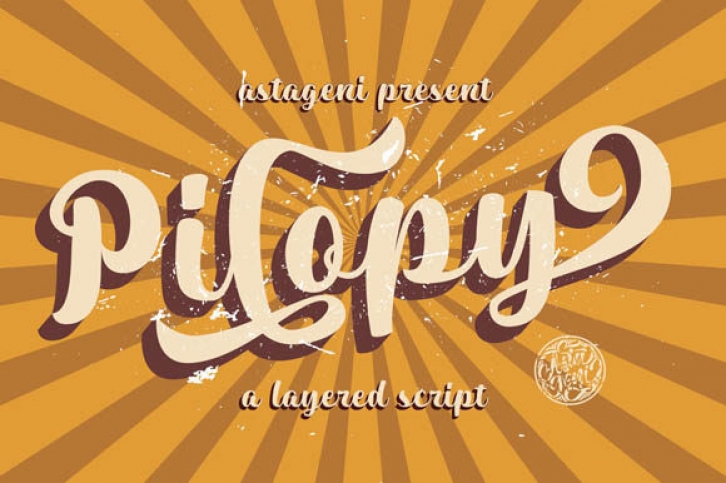
Pilopy is a bold script font with a unique vintage look. Pilopy also comes with an extra extruded version. It will elevate a wide range of design projects to the highest level, be it branding, headings, logos, labels, and much more!